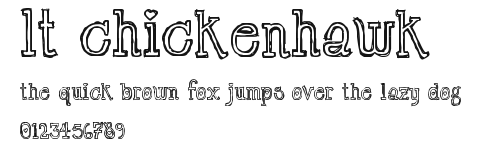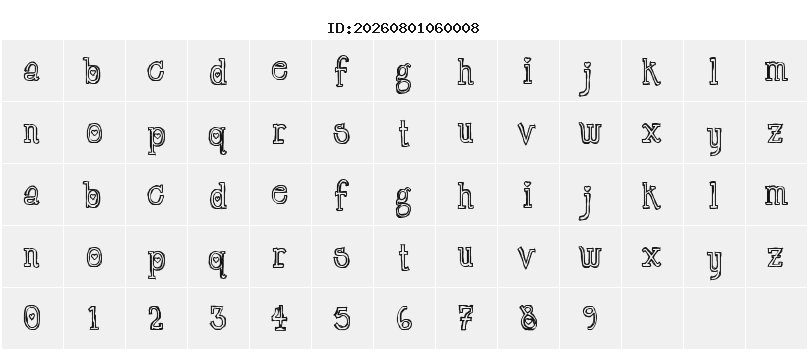
• Font Name: LT Chickenhawk
• Designer: Lauren Thompson
• Description: Original hand drawn slab serif outline decorative typeface by Lauren Thompson. All lowercase.